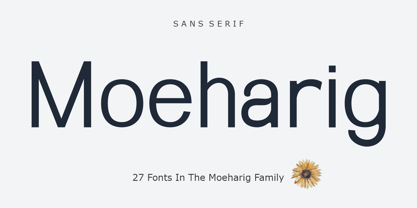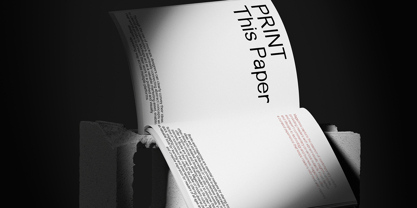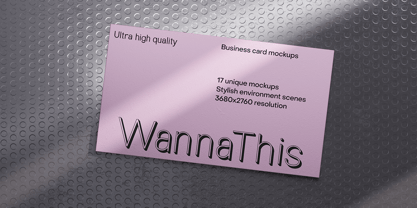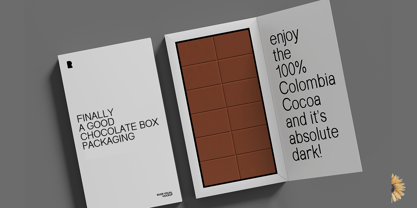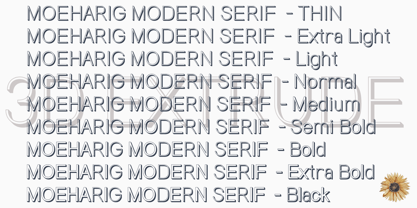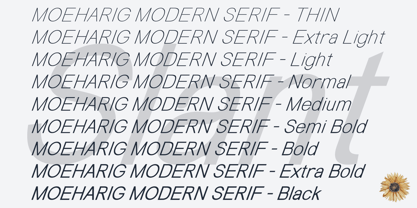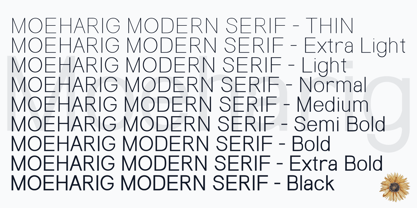
Moeharig
by Zaki Creative
Moeharig Font Family was designed by Teuku Muhammad Zaki and published by Zaki Creative. Moeharig contains 27 styles family package options.
Moeharig is a truly versatile sans serif font family designed to elevate your projects with elegance and precision. Featuring 27 unique styles, Moeharig covers basic, 3D extrude, and slant variations, each available in nine different weights, ranging from thin to black. Whether you're crafting sleek branding, editorial layouts, or dynamic digital content, Moeharig offers the flexibility and power to bring your creative vision to life.
The 3D extrude option adds striking depth, while the slant styles infuse a sense of motion and energy into your designs. Each character in Moeharig is carefully crafted to exude modern sophistication, ensuring that your work stands out with a professional and contemporary flair.